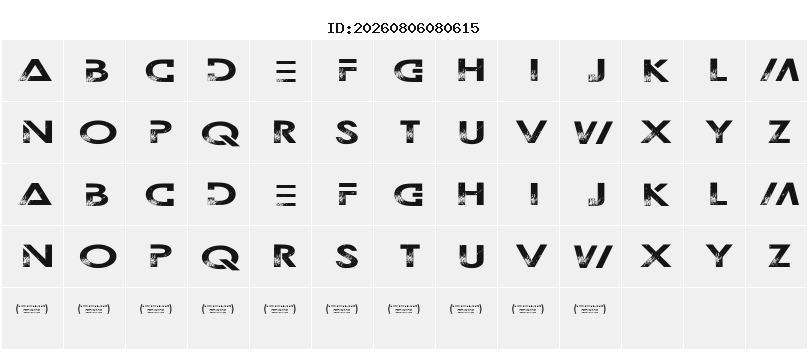
Outerspace Militia Preview
• Font Name: Outerspace Militia
• Full Font Name: Outerspace Militia
• Designer: Chris Vile
• Manufacturer: Font Monger
• Description: Outerspace Militia is a font by Font Monger, designed by Chris Vile in 2014.
About Outerspace Militia.ttf
Outerspace Militia.ttf is a modern, elegant sans-serif font designed for ultimate readability and visual harmony. Perfect for branding, headlines, web design, and print materials.